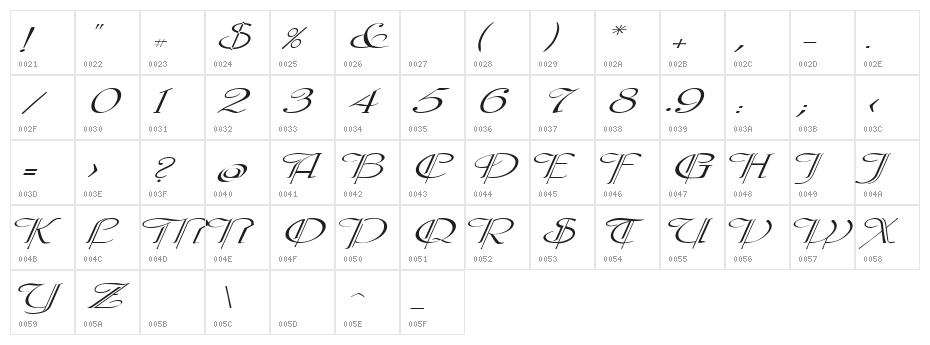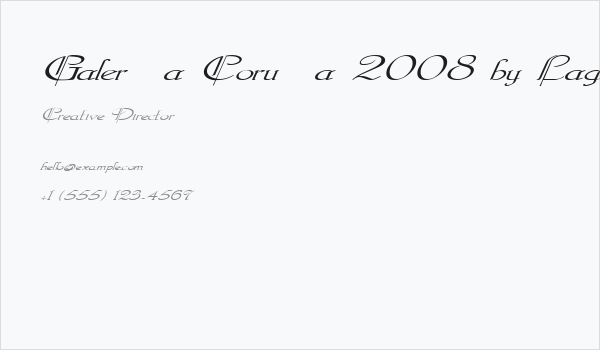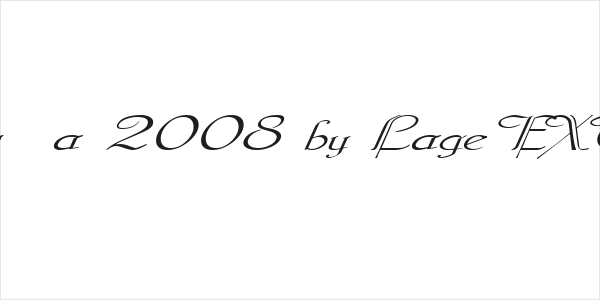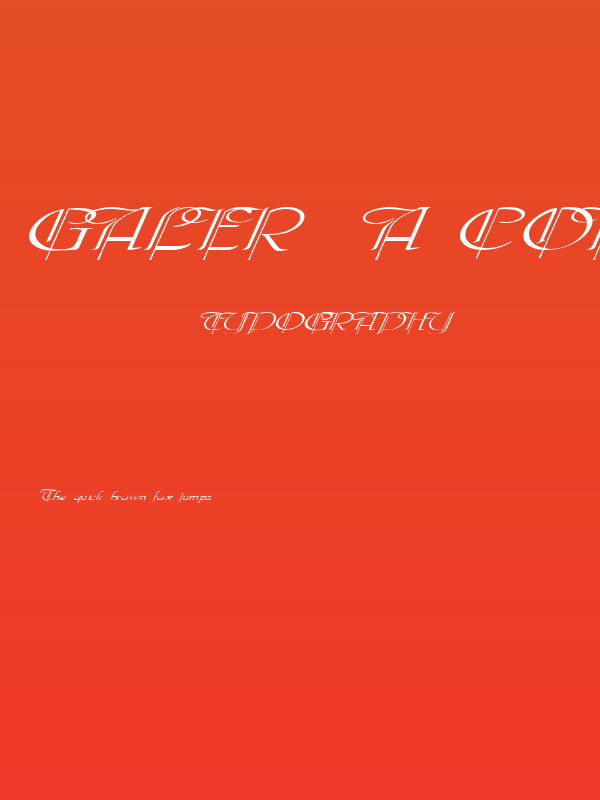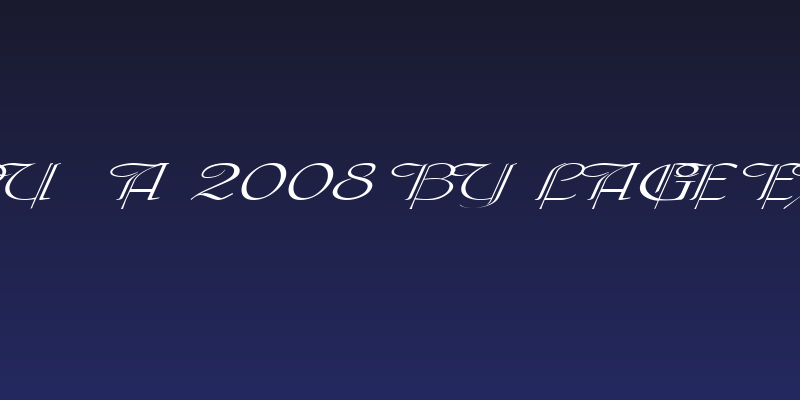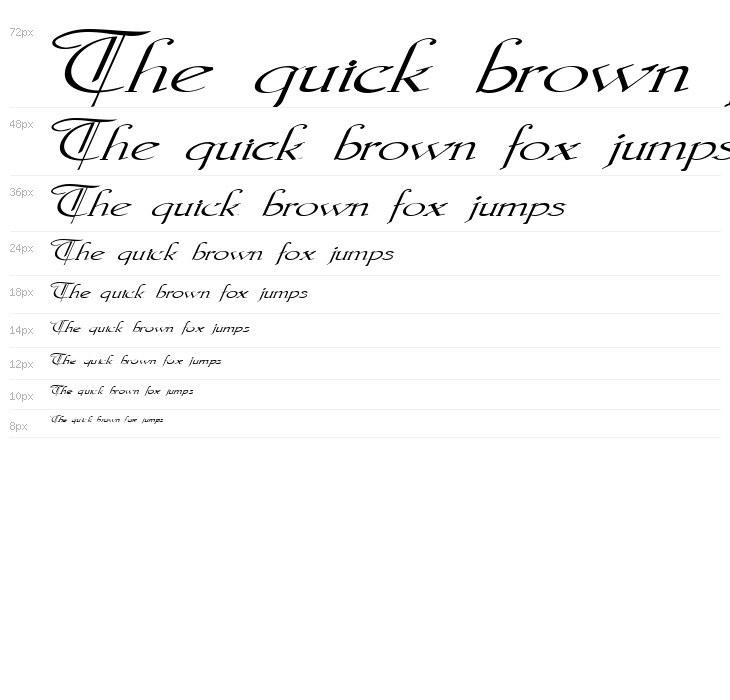
Galerìa Coruña 2008 by Lage EXT NRM Italic Font
Galerìa Coruña 2008 by Lage EXT NRM Italic Description
This elegant font features a sophisticated and flowing script style, characterized by its italicized and elongated letterforms. The uppercase letters exhibit a unique flair with extended strokes and delicate curves, while the lowercase letters maintain a graceful and fluid appearance. The numerals are designed with a similar elegance, offering a cohesive look across all characters. Special characters are crafted with attention to detail, enhancing the overall aesthetic. The font's design suggests a blend of traditional calligraphy with a modern twist, making it suitable for a variety of creative applications.
| Proposed Projects | Ideal for wedding invitations, luxury branding, elegant packaging, and artistic posters. |